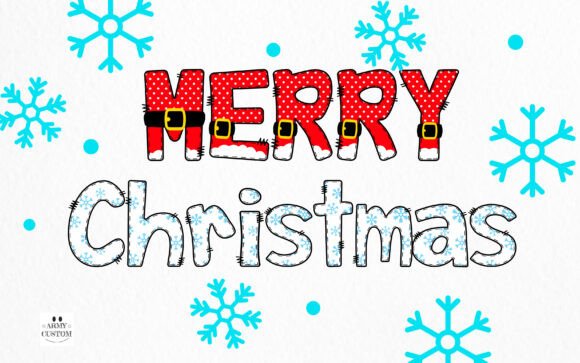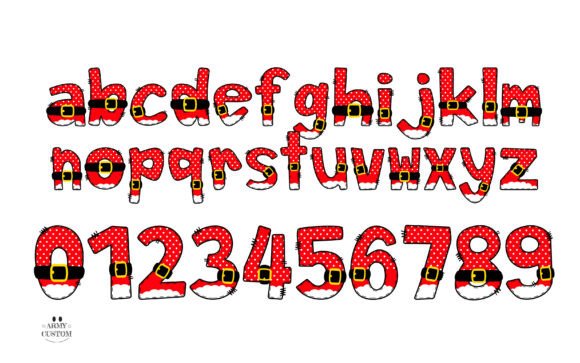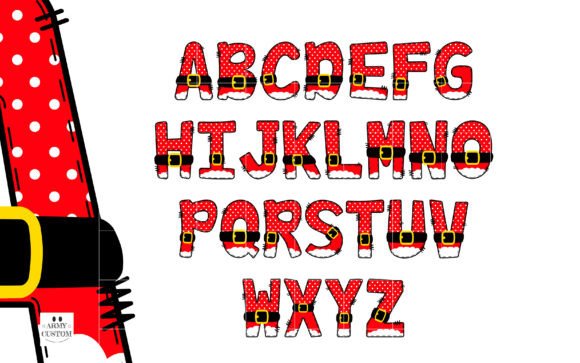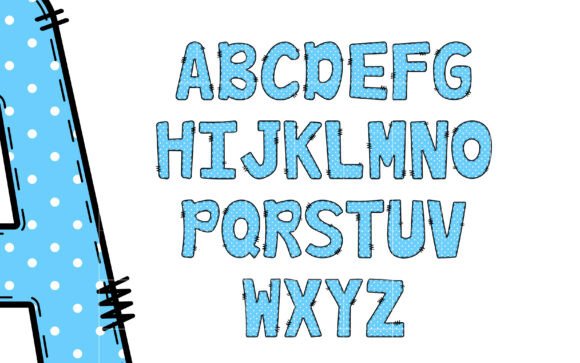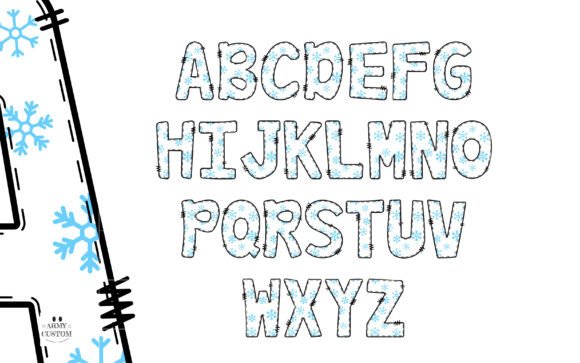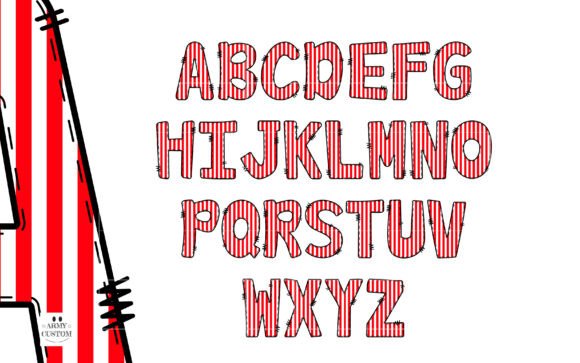
Elevate Your Holiday Designs with the Christmas Bundle Font
It’s that time of the year when creativity knows no bounds, and the joy of designing festive projects takes center stage. You’re browsing through design inspiration boards, searching for the perfect font to add a dash of magic to your holiday cards, or perhaps, you’re working on a project that requires a whimsical touch. Whatever the case may be, you’re on the lookout for a font that captures the essence of the season.
Enter the delightful Christmas Bundle Font, a playful addition to your holiday design toolkit. This jovial font is designed to bring a sense of wonder and excitement to your projects, making it an ideal choice for creating vibrant holiday decorations or adding a dash of merriment to any design project. The Christmas Bundle Font is a treasure trove of creative possibilities, and we’re excited to share its charms with you.
Christmas Bundle Font Key Features
- Font Family: The Christmas Bundle Font includes a variety of font styles, including serif, sans-serif, script, and display fonts.
- Character Count: The font bundle includes over 500 characters, including uppercase and lowercase letters, numbers, punctuation marks, and special characters.
- Unique Characteristics: The Christmas Bundle Font features a festive and playful design, with intricate details and ornaments that evoke the spirit of the holiday season.
Designer Review: Christmas Bundle Font
Overall, I’m quite impressed with the Christmas Bundle Font, but as with any font, it has its strengths and weaknesses.
- Unique Design: The font has a unique and quirky design that perfectly captures the festive spirit of Christmas.
- Customization Options: The font comes with a range of customization options, including color schemes, size variations, and spacing adjustments.
- Easy to Use: The font is incredibly easy to use, even for those with limited design experience.
- Limited Character Set: The font’s character set is limited, which may not be suitable for longer texts or paragraphs.
- Not Suitable for Body Text: Due to its playful and decorative nature, the font is not suitable for body text and may be best used for titles, headings, or design elements.
The Christmas Bundle Font is a great addition to any designer’s toolkit, especially for those working on Christmas-themed projects. While it has some limitations, its unique design and customization options make it a standout choice for titles, headings, and design elements.
For the best results, use the Christmas Bundle Font in conjunction with festive graphics and elements, such as snowflakes, holly, and Christmas trees. Experiment with different font sizes and colors to create a visually appealing design. Consider using the font in combination with other fonts to add depth and variety to your design.
The Christmas Bundle Font is perfect for creating festive designs for Christmas cards, invitations, and social media graphics. It can also be used to create holiday-themed presentations and documents, such as gift tags, gift certificates, and holiday newsletters.